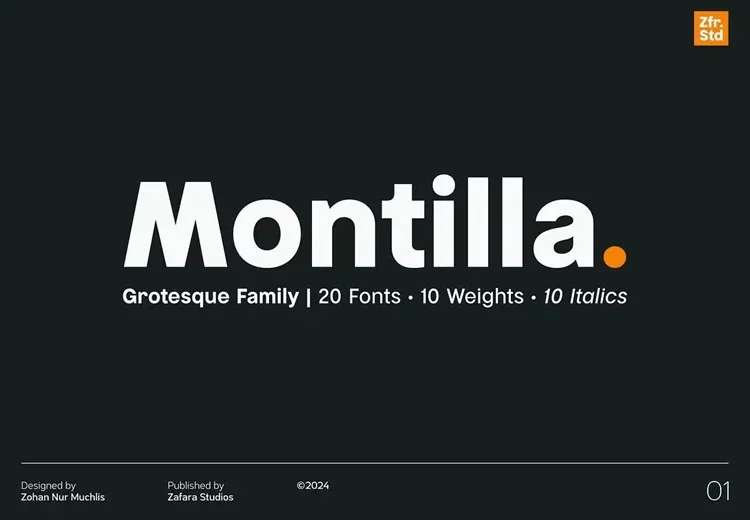
Montilla Font
Montilla Font is a sans serif typeface designed with versatility in mind, offering a clean, geometric style with minimalistic decoration. Its high legibility and simple, minimalist appearance make it perfect for a wide range of applications, especially in modern and professional settings where space and functionality are key.
This font is highly adaptable and suitable for various design purposes including corporate identity, editorial design, user interface design, advertising, wayfinding, product packaging, educational materials, publications, and other creative projects. Its streamlined aesthetic makes it a great choice for enhancing any project with a modern and professional touch.
Montilla comes with ten styles, ranging from ultra light to black, allowing for flexibility in adjusting the weight of the body text. It also includes ten matching italic styles, giving designers even more options to fine-tune their work.